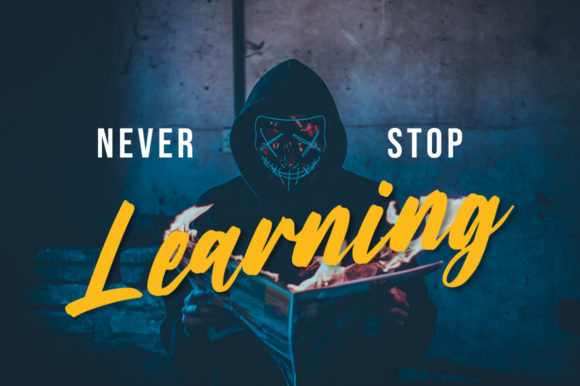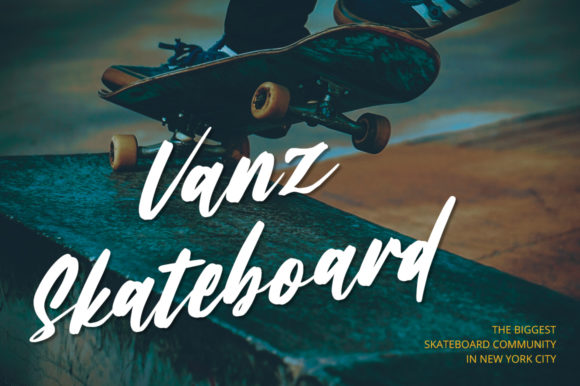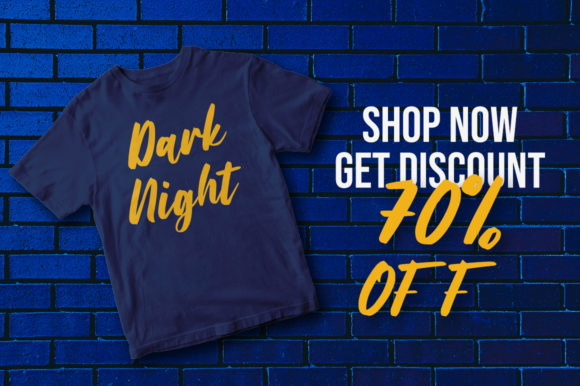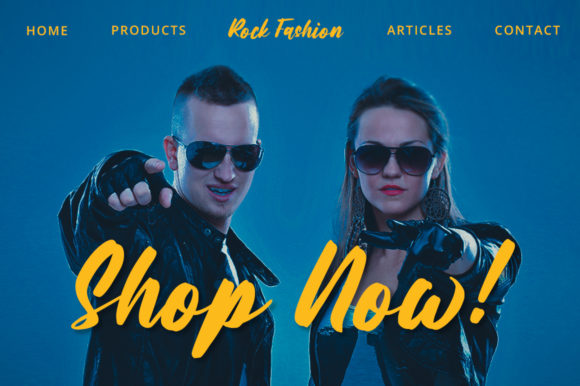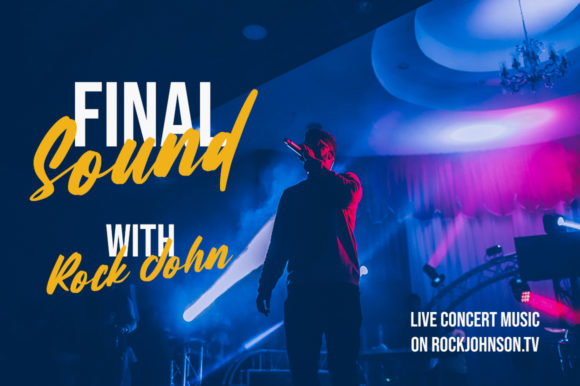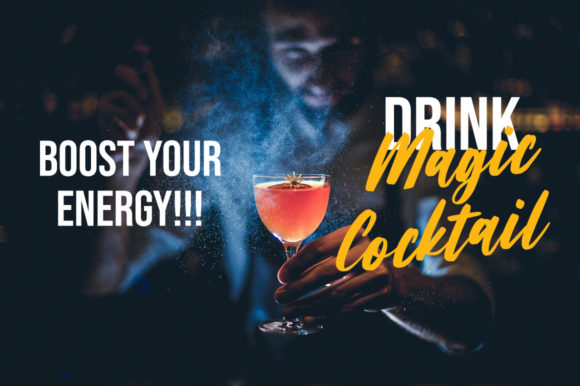
Discover the Elegance of Black History Font: A Timeless Choice for Designers and Crafters
Are you a designer or crafter looking for a font that exudes charm and elegance? Look no further than the Black History Font. This beautiful, handwritten font is perfect for adding a touch of sophistication to any design project. In this article, we’ll explore the unique features of the Black History Font, its uses, and why it’s a great choice for designers and crafters alike.
What is Black History Font?
Black History Font is a stunning, handwritten font that is both charming and elegant. Its unique, cursive style makes it perfect for designs that require a personal touch. The font is highly versatile and can be used for a wide range of projects, from wedding invitations and greeting cards to logos and business cards.
Characteristics of Black History Font
The Black History Font has several characteristics that make it stand out from other fonts. Some of its key features include:
- Elegant and Charming: The font has a sophisticated, elegant feel that makes it perfect for designs that require a high level of refinement.
- Handwritten Style: The font has a beautiful, handwritten style that adds a personal touch to any design.
- Versatile: The font is highly versatile and can be used for a wide range of projects, from wedding invitations to logos and business cards.
- Easy to Read: Despite its elegant style, the font is easy to read, making it perfect for designs that require a high level of legibility.
Uses of Black History Font
The Black History Font is perfect for a wide range of design projects, including:
- Wedding Invitations: The font’s elegant style makes it perfect for wedding invitations, adding a touch of sophistication to your designs.
- Greeting Cards: The font is also great for greeting cards, allowing you to add a personal touch to your designs.
- Logos: The font’s unique style makes it perfect for logos, helping you to create a memorable brand identity.
- Business Cards: The font is also great for business cards, adding a touch of elegance to your professional designs.
- Quotes: The font is perfect for quotes, allowing you to add a touch of sophistication to your designs.
Why Choose Black History Font?
There are many reasons why designers and crafters choose the Black History Font for their projects. Some of the key benefits of using this font include:
- Unique Style: The font’s unique, handwritten style sets it apart from other fonts, making it perfect for designers who want to create something truly special.
- Elegance: The font’s elegant style makes it perfect for designs that require a high level of sophistication.
- Versatility: The font is highly versatile, making it perfect for a wide range of design projects.
- Easy to Use: The font is easy to use, making it perfect for designers and crafters of all skill levels.
Tips for Using Black History Font
To get the most out of the Black History Font, here are a few tips to keep in mind:
- Use it Sparingly: While the font is elegant and charming, it can be overwhelming if used too much. Use it sparingly to add a touch of sophistication to your designs.
- Pair it with Other Fonts: The font pairs well with other fonts, so don’t be afraid to experiment with different combinations.
- Experiment with Colors: The font looks great in a variety of colors, so experiment with different colors to find the one that works best for your design.
| Author | FatmaStudio |
The Black History Font is a beautiful, elegant font that is perfect for designers and crafters who want to add a touch of sophistication to their designs. Its unique, handwritten style makes it perfect for a wide range of projects, from wedding invitations to logos and business cards. With its ease of use and versatility, it’s no wonder that this font is a popular choice among designers and crafters. So why not give it a try and see how it can elevate your designs?